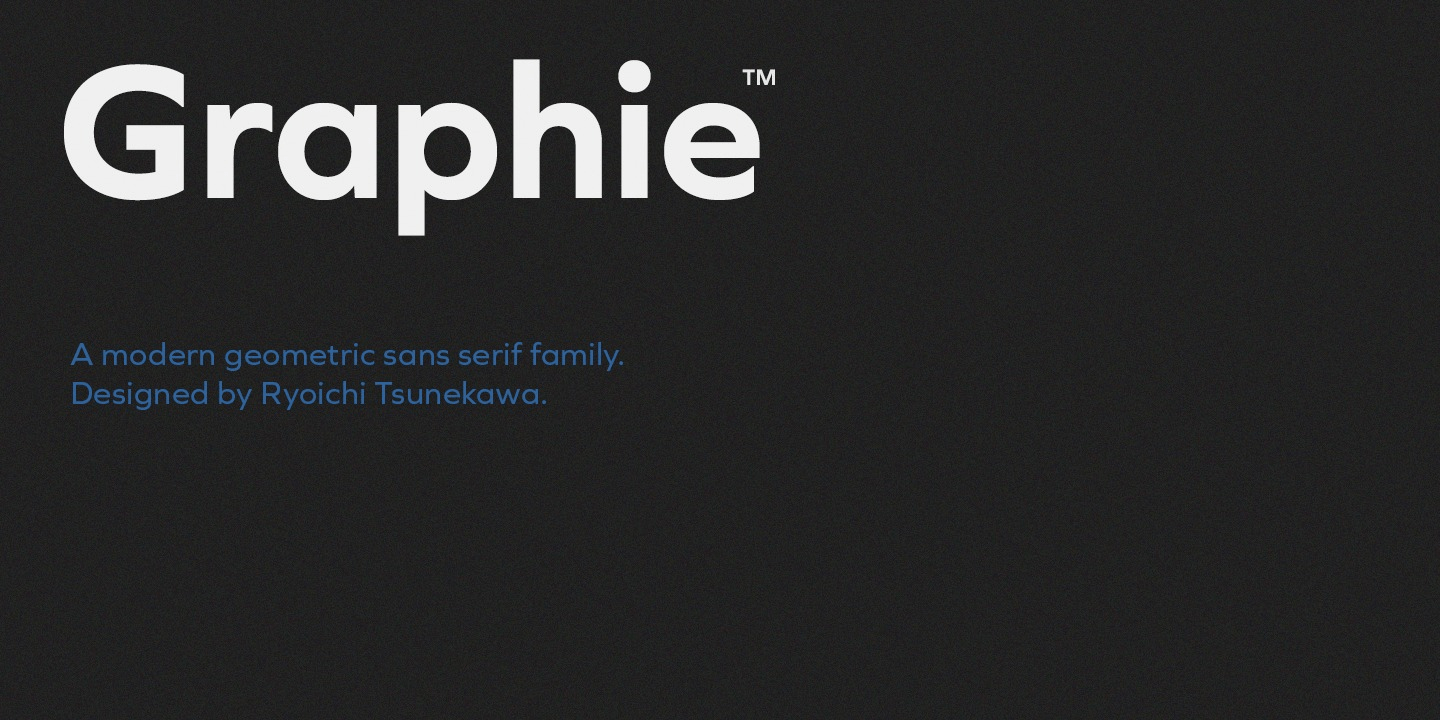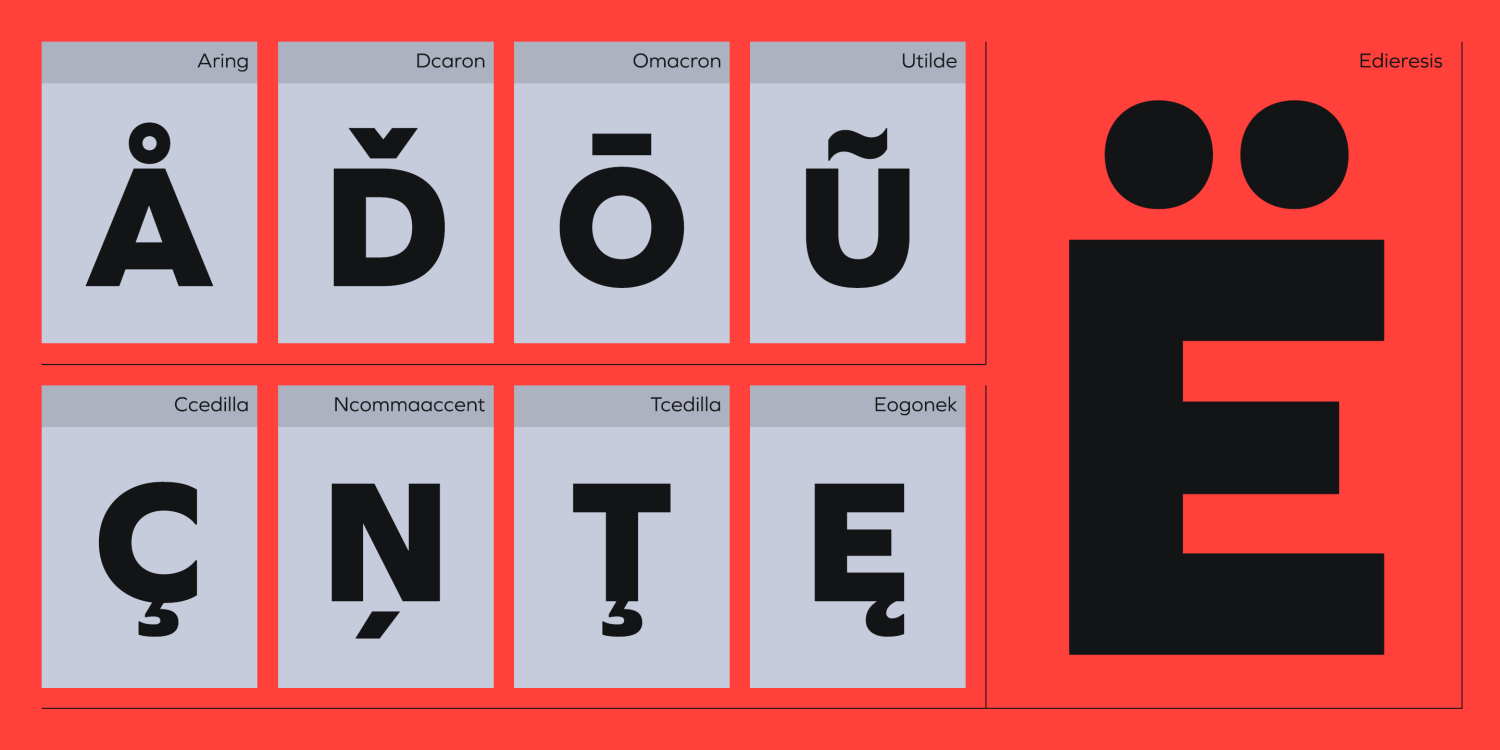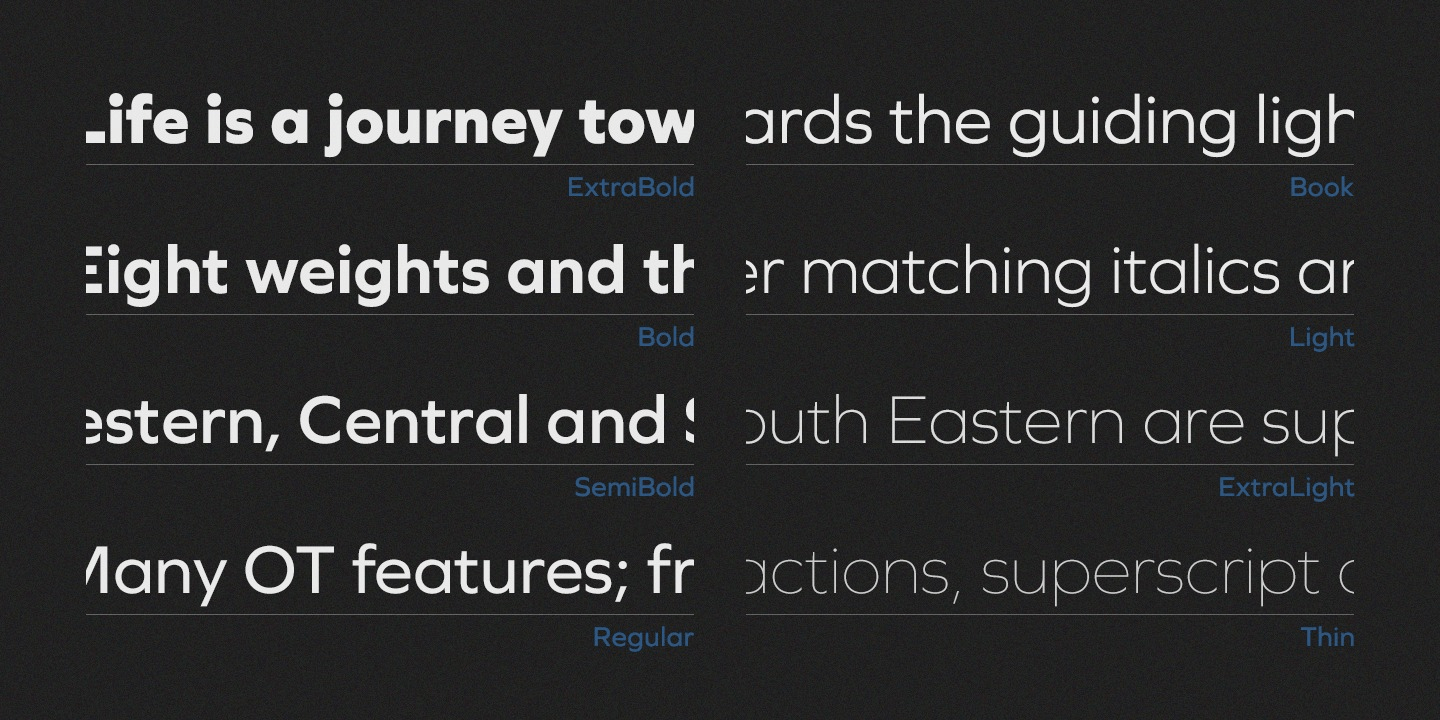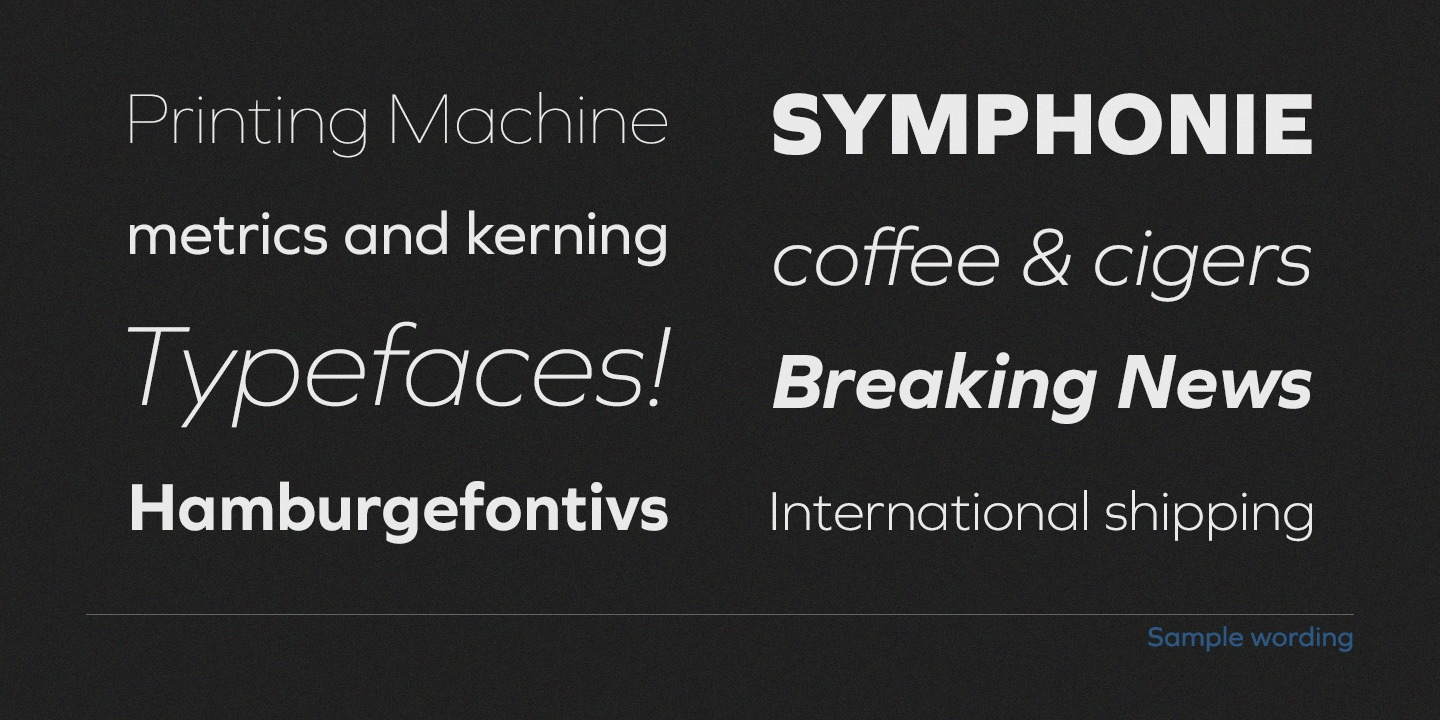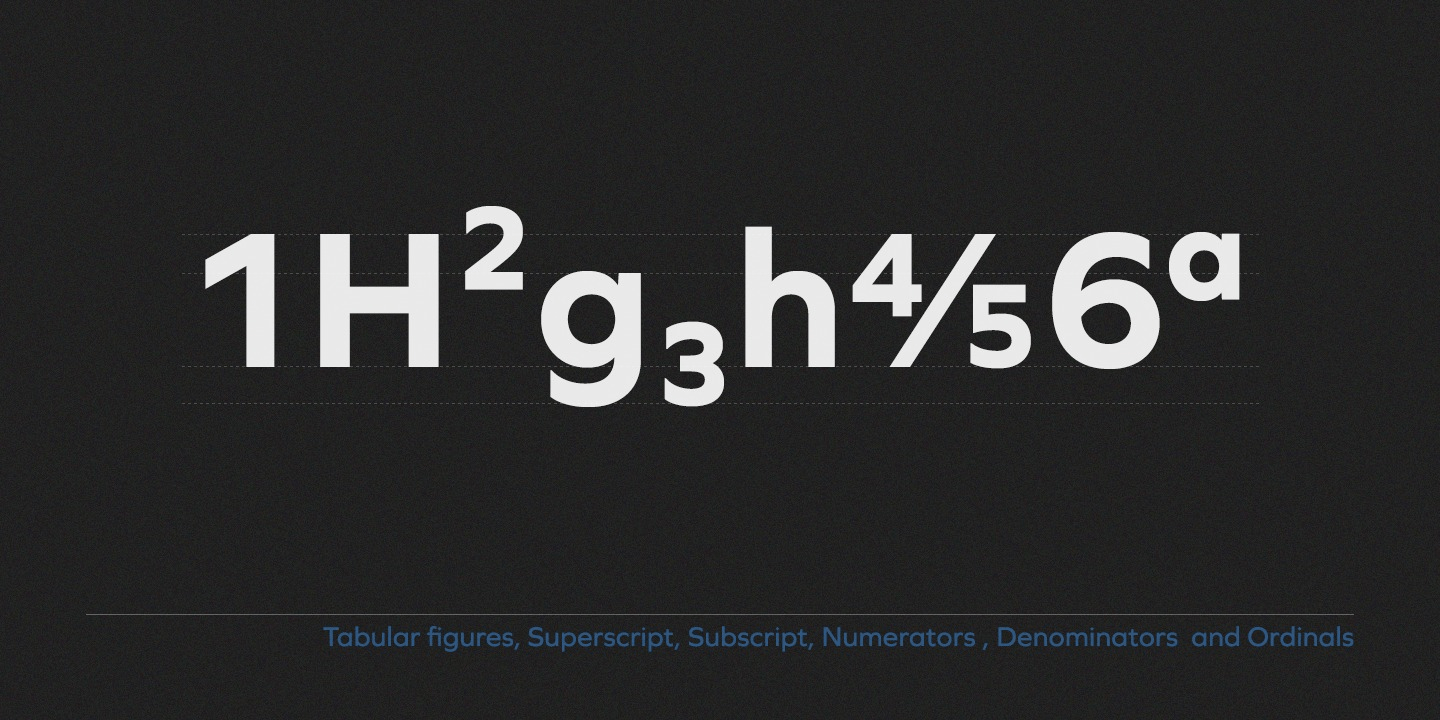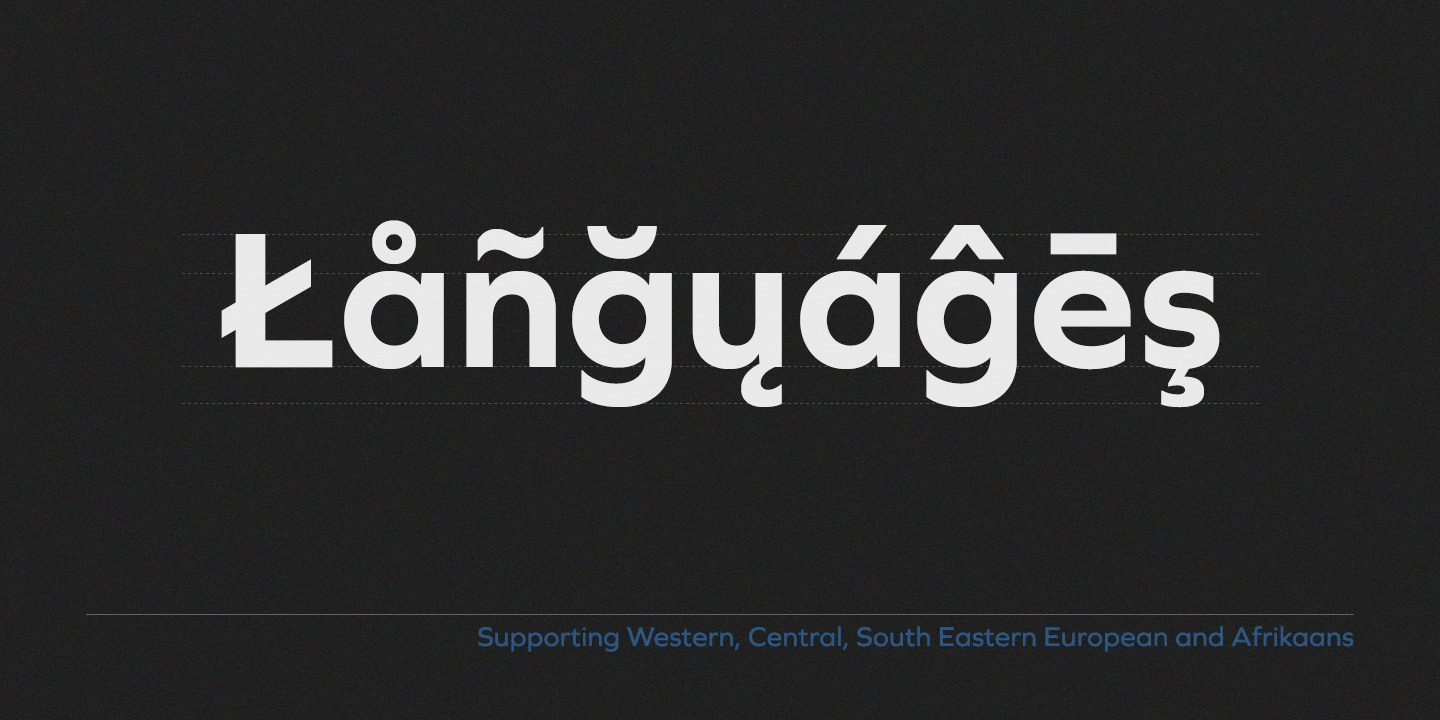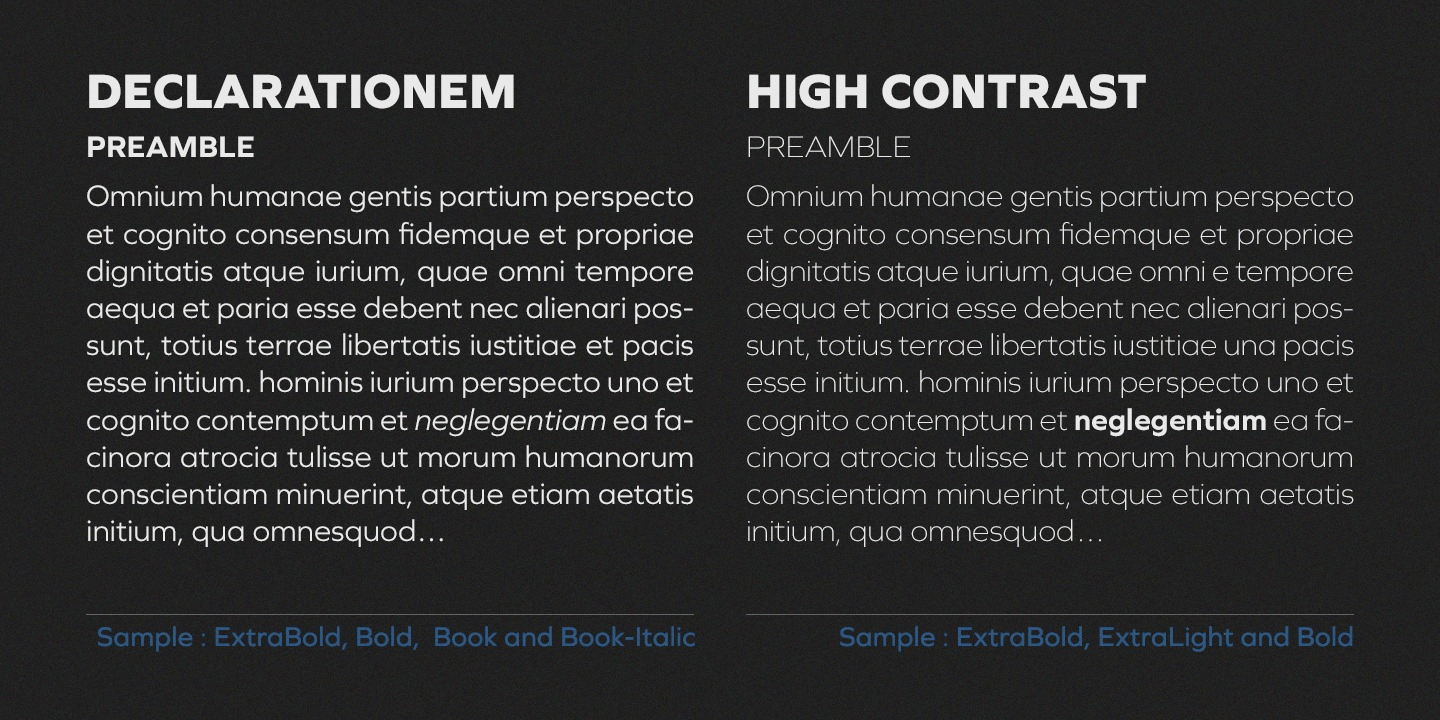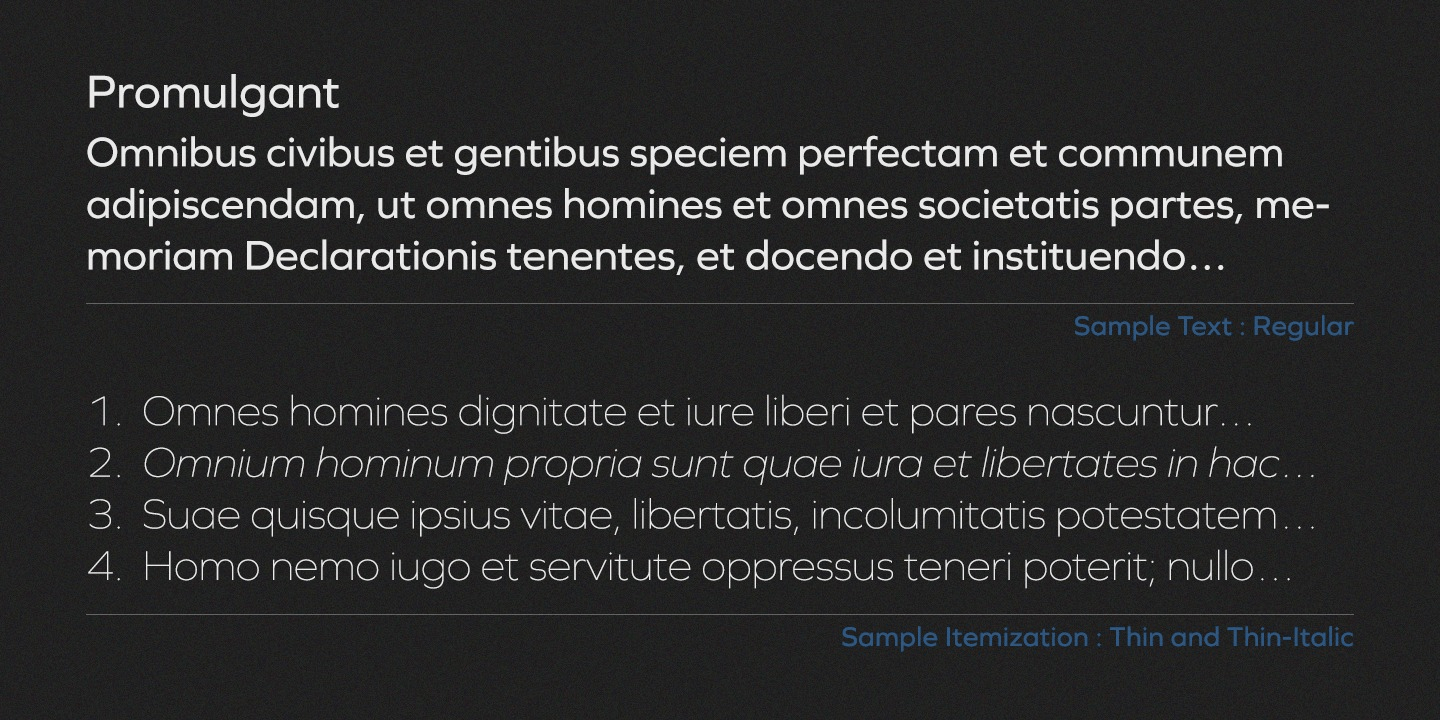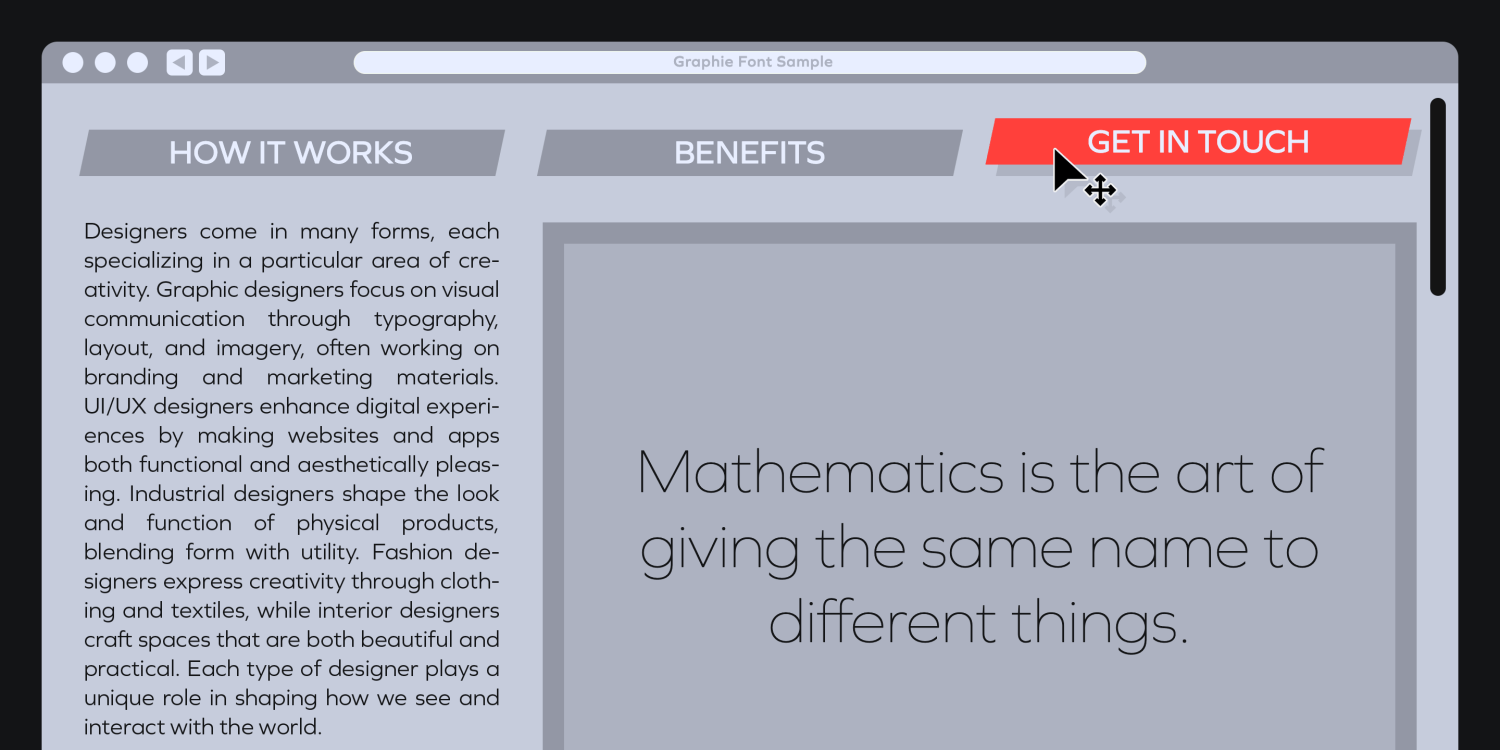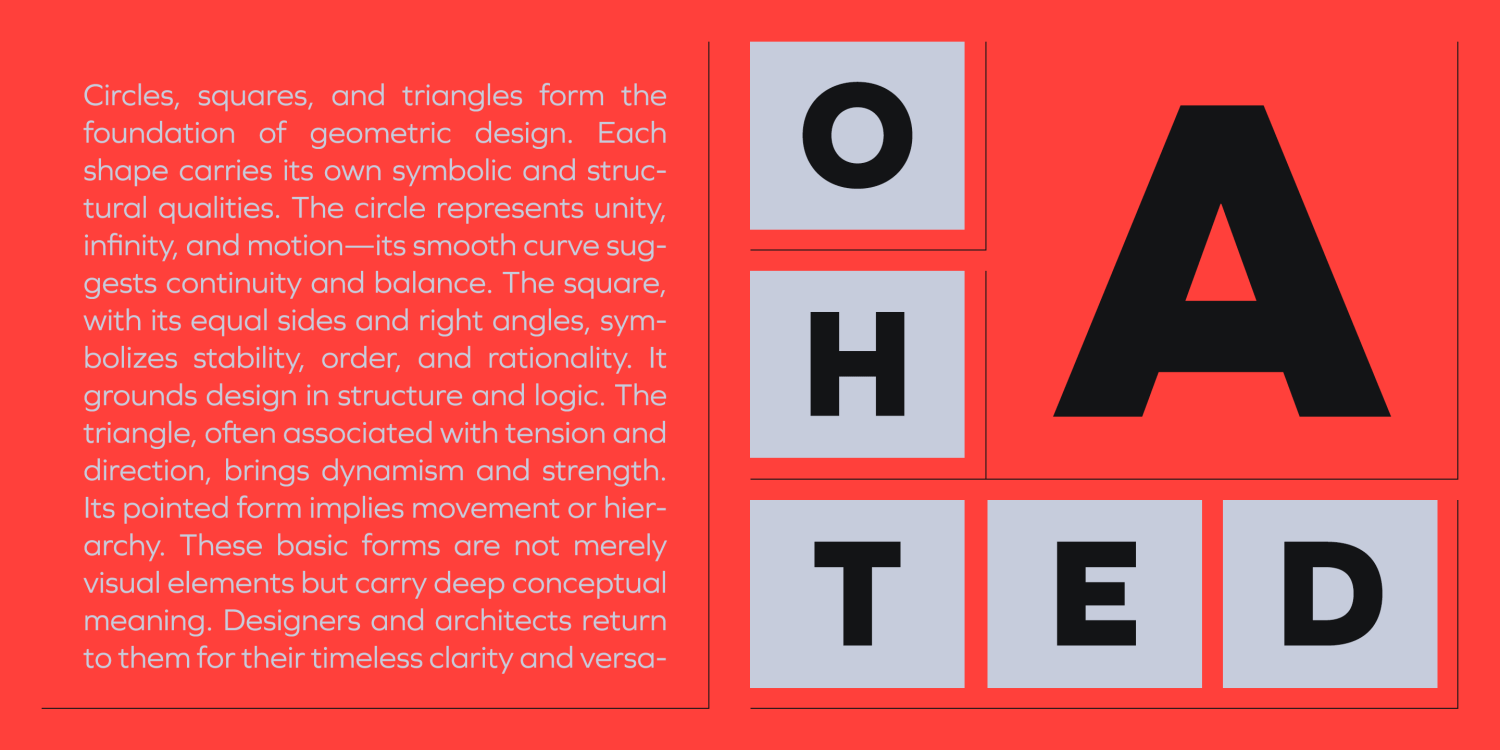
Graphie
Font Family by Dharma Type
Graphie is a modern geometric sans-serif type family designed by Ryoichi Tsunekawa, comprising 16 styles—eight weights from Thin to ExtraBold, each with matching italics.
Its wide range of styles offers excellent flexibility for titles, headlines, and body text.
With sharp corners, crisp straight lines, and a large x-height, Graphie delivers clarity, legibility, and a distinct sense of precision.
Built on a geometric foundation and refined with optical corrections, Graphie maintains a sophisticated, clean aesthetic.
Its neutral and universal design ensures seamless usability across all media and purposes, from branding to editorial and UI/UX.
Graphie supports nearly all European languages, including Western, Central, and South Eastern European languages, as well as Afrikaans.
It also includes OpenType features such as superior and inferior figures, denominators, numerators, and fractions, offering advanced typographic versatility.